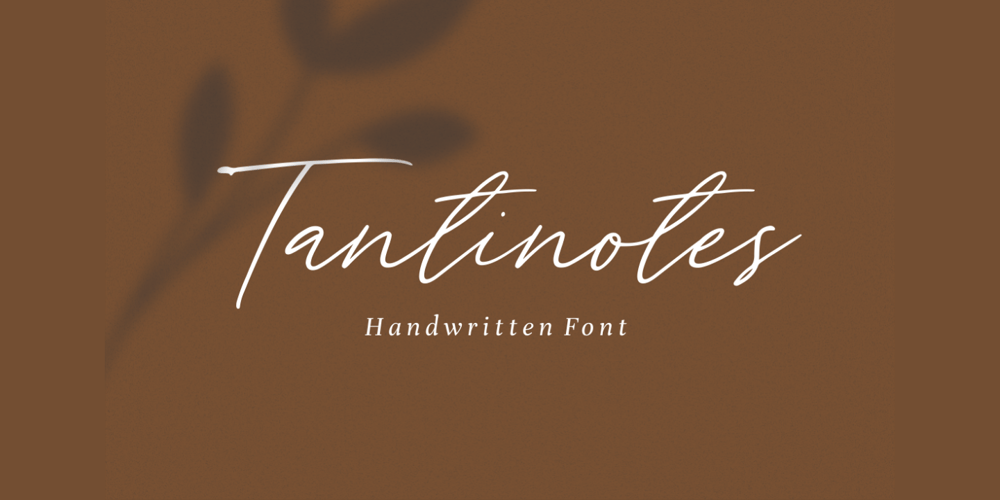
Tantinotes Font Family was designed by Muhamad Yusron Billah and published by Sronstudio. Tantinotes contains 1 styles and family package options. Introducing Tantinotes – Handwritten FontTantinotes is a natural handwritten font, this font Is perfect for logo, invitation, stationery, wedding designs, social media posts, advertisements, product packaging, product designs, label, photography, watermark, special events or anything.Tantinotes comes with full set of uppercase and lowercase letters, multilingual symbols, numerals, punctuation.Thank You, Sronstudio